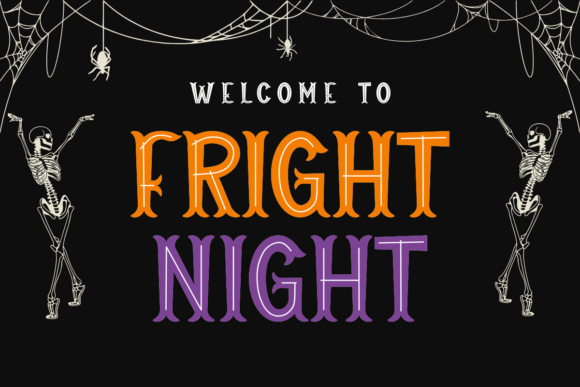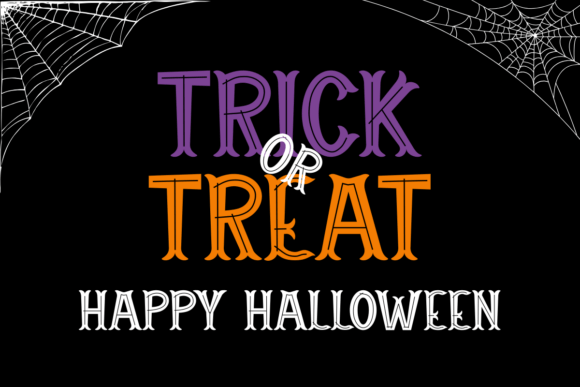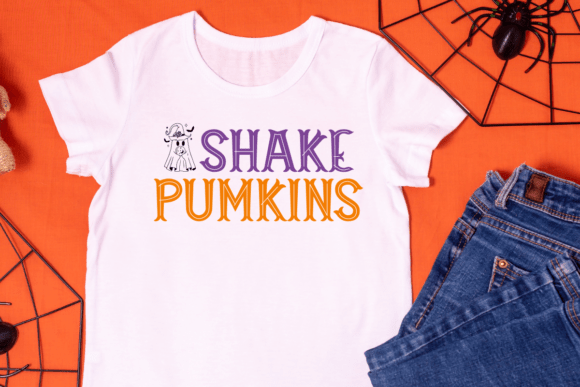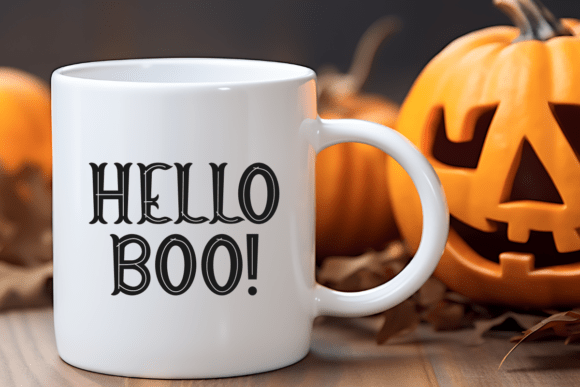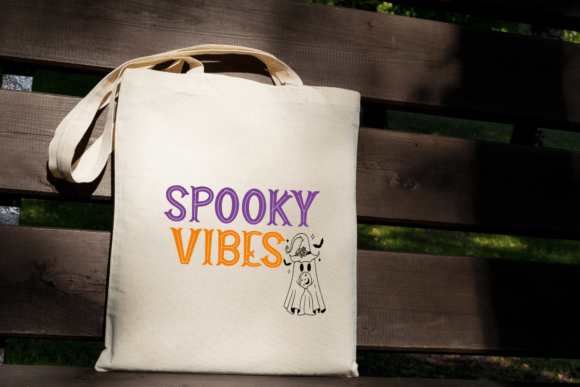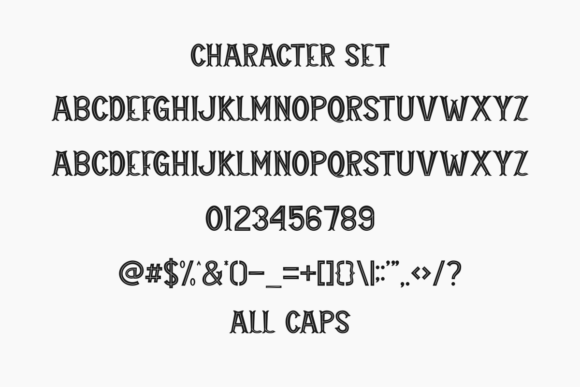
Introduction to Shakepumkins Regular Font
Do you remember the rush of excitement when brainstorming ideas for your next creative project? Maybe it was a Halloween-themed design for a friend’s birthday party or a spooky poster for a haunted house attraction. Whatever the project, finding the right design resource can make all the difference between a mediocre design and a masterpiece. And that’s where the Shakepumkins Regular Font comes in – a game-changing, high-quality font that’s sure to add a hauntingly fun twist to your designs.
With its bold letterforms and unique cut-out details inspired by pumpkin carvings, the Shakepumkins Regular Font is the perfect choice for designers looking to create eye-catching, seasonal designs with a transparent background that pops. And the best part? It’s available for free download, making it a valuable addition to any designer’s toolkit.
- Unique, hand-drawn design with a playful and whimsical feel, perfect for adding a touch of personality to your project
Honest Review: Shakepumkins Regular Font
I’ve recently stumbled upon the Shakepumkins Regular Font while searching for the perfect design resource for my latest creative project. In this review, I’ll share my honest thoughts on this free download.
- ✨ High quality design: The Shakepumkins Regular Font is a beautifully crafted font that’s perfect for any creative project.
- ✨ Transparent background: This font has a transparent background, making it easy to layer over other design elements.
- ⚠️ Limited character set: The Shakepumkins Regular Font only includes a limited character set, which may not be suitable for longer texts.
- ⚠️ Not suitable for complex designs: This font is best used for simple designs, as it may not hold up well to more complex layouts.
Overall, I’m impressed with the Shakepumkins Regular Font. While it has some limitations, its high quality design and transparent background make it a valuable resource for any designer. I’d definitely recommend it for simple creative projects or as a design resource for designers on a budget.
Tips for Getting the Most Out of Shakepumkins Regular Font
- Use the font with a transparent background to create a clean and modern design.
- Combine the Shakepumkins Regular Font with other high-quality fonts to create a unique and creative project.
- Experiment with different font sizes and styles to add visual interest to your design.